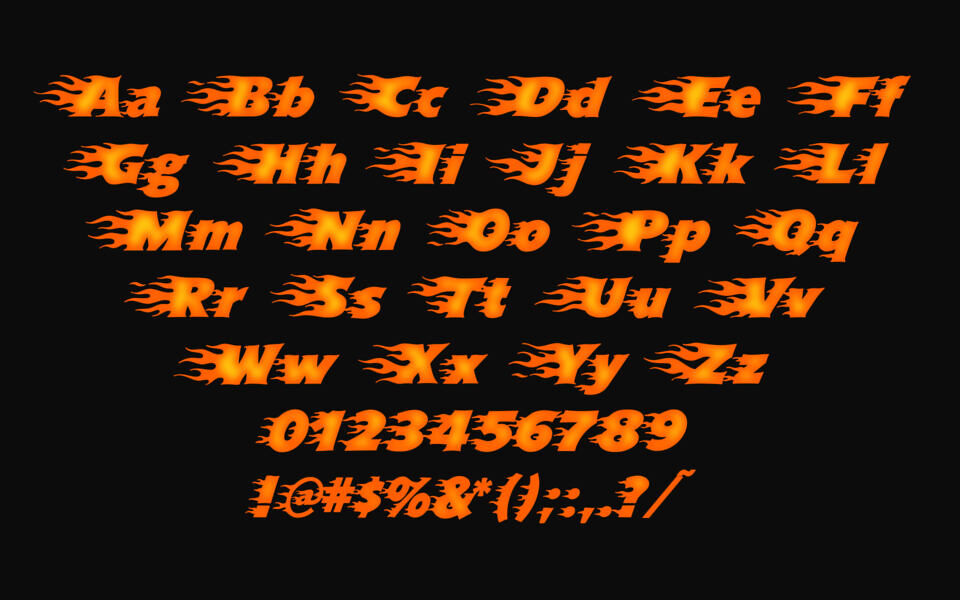
Blazed Font
Blazed is a display font with a fiery, decorative style. The bold lettering is outlined with flames, giving it a dynamic and intense appearance.
This font is perfect for projects that need a hot, adventurous, or high-energy feel, such as event posters, logos, and themed graphics. Its unique characteristics make it stand out with a powerful and aggressive look.